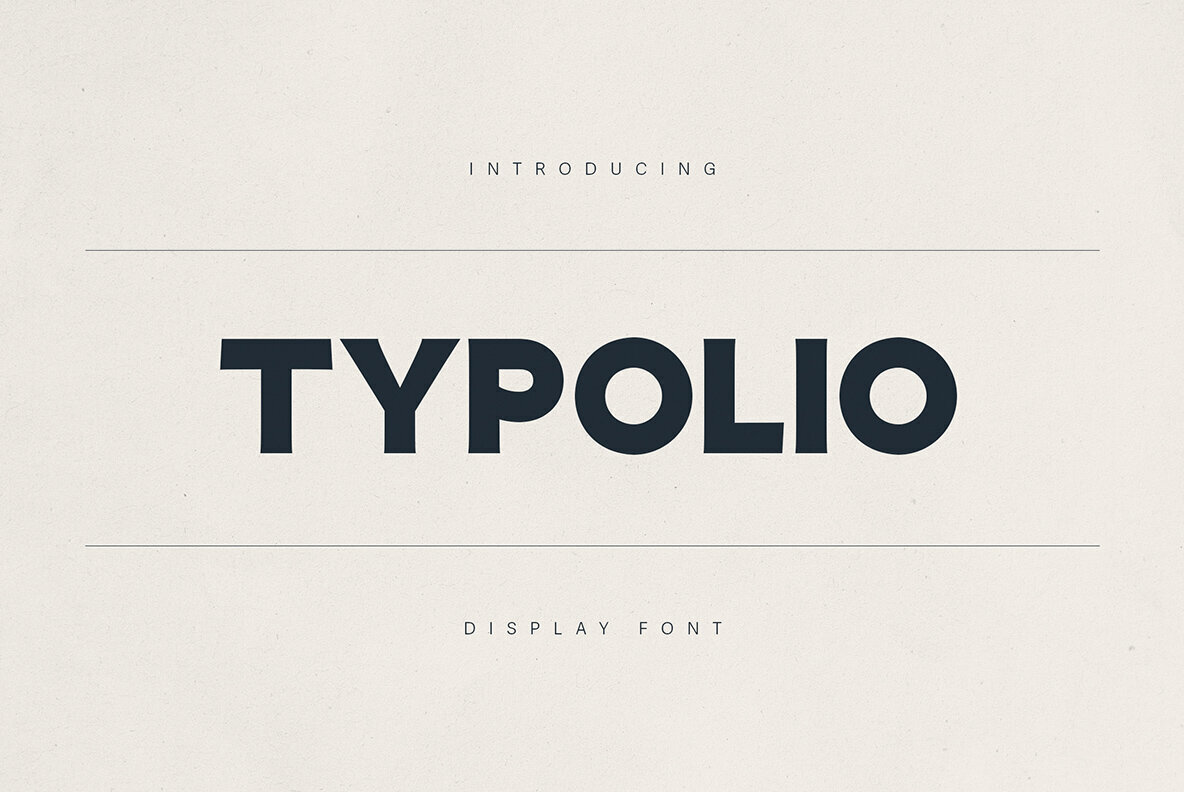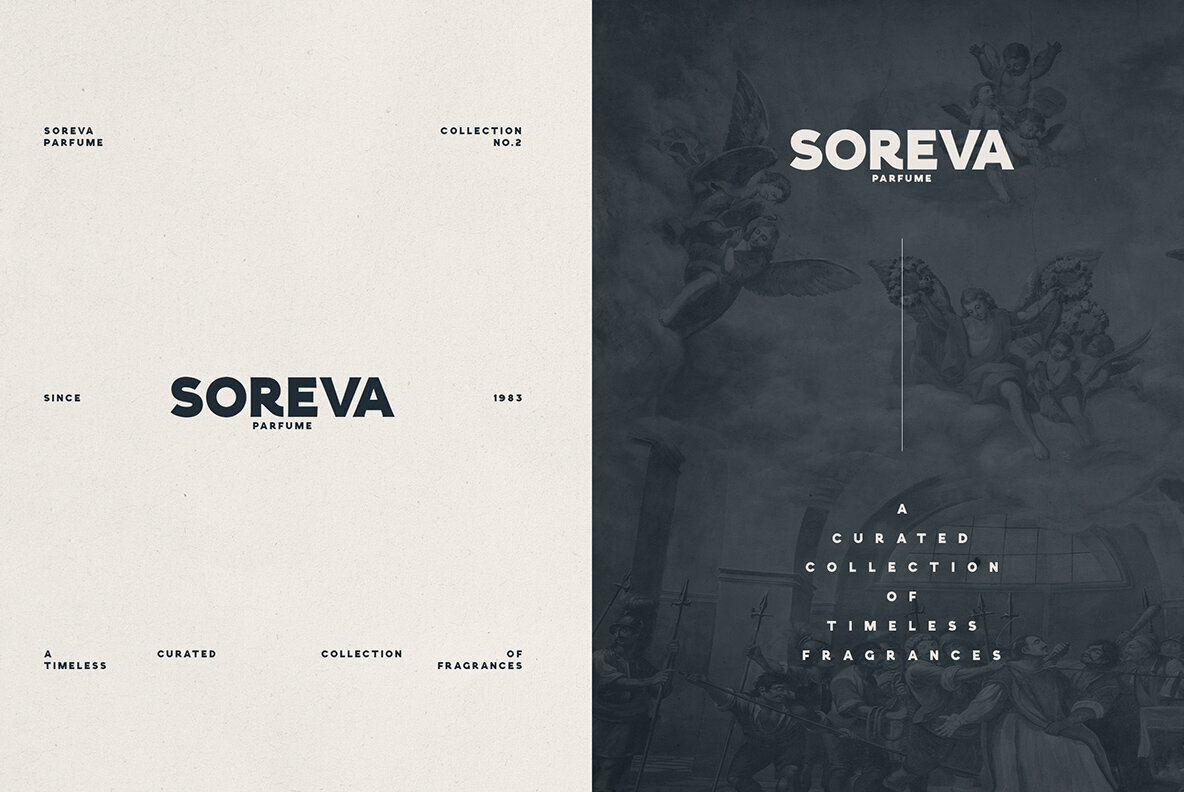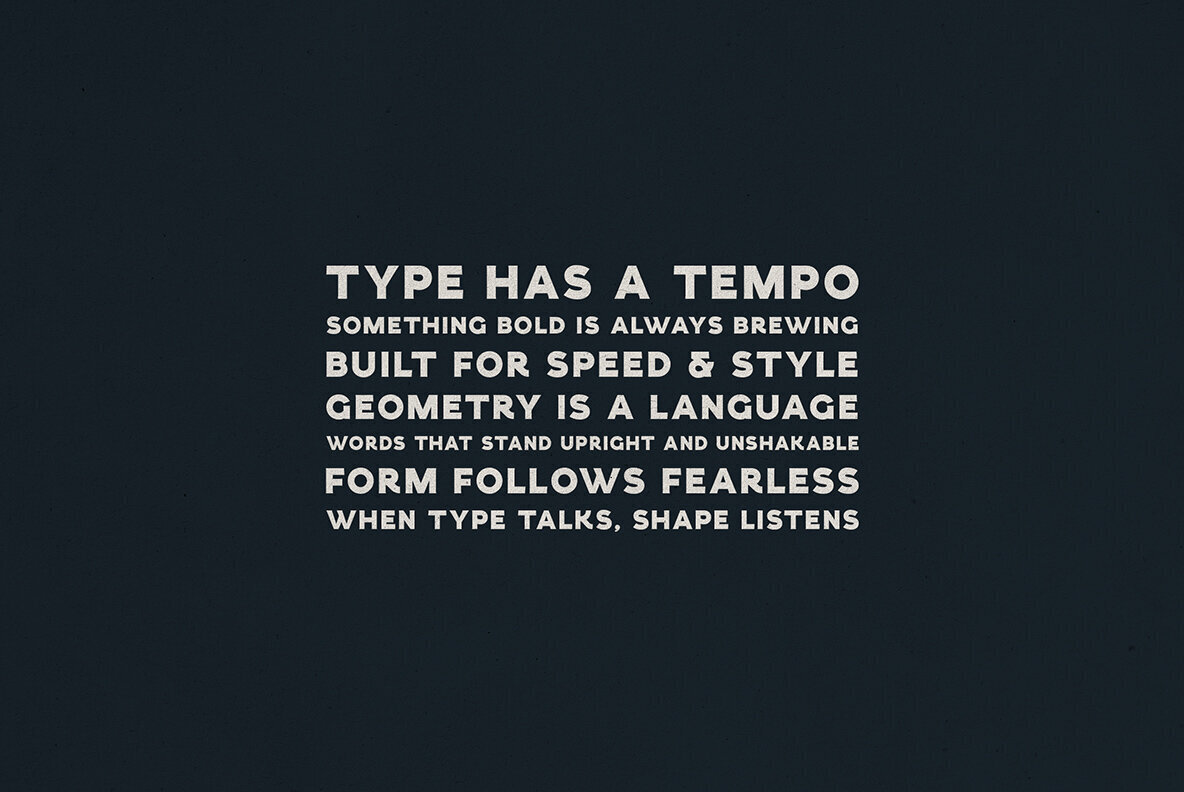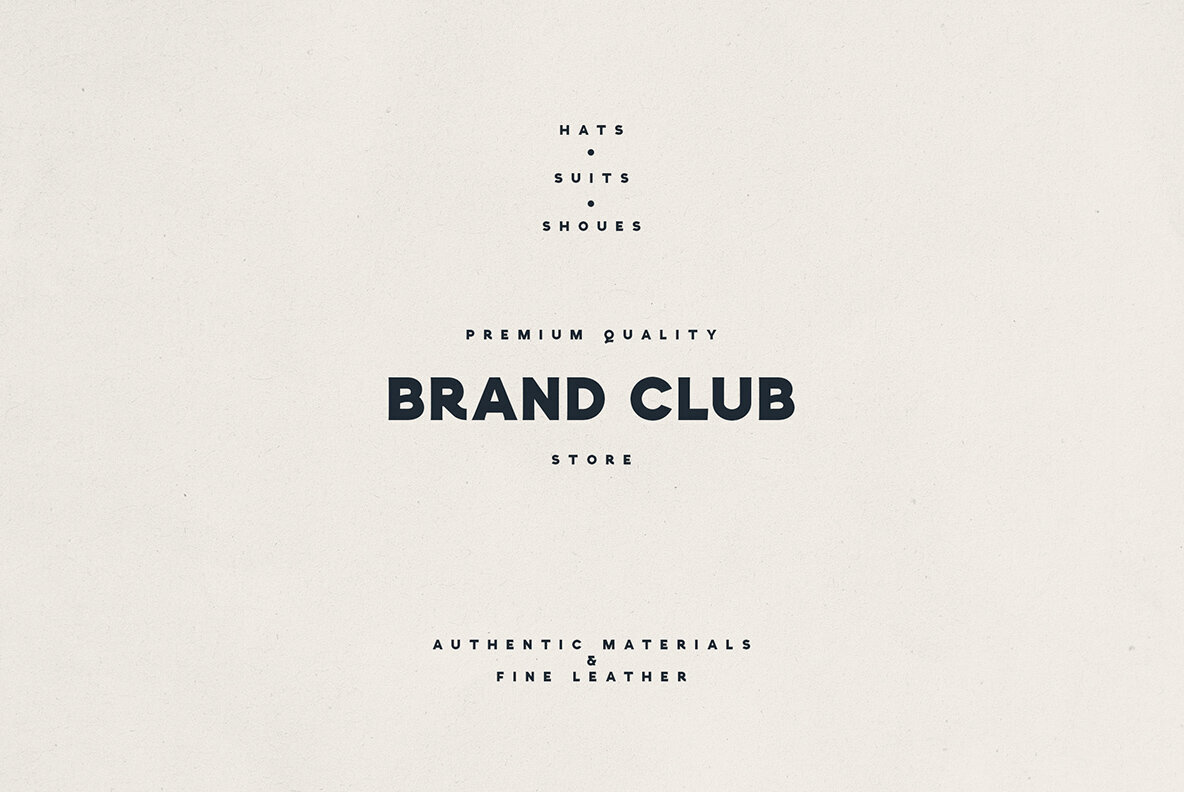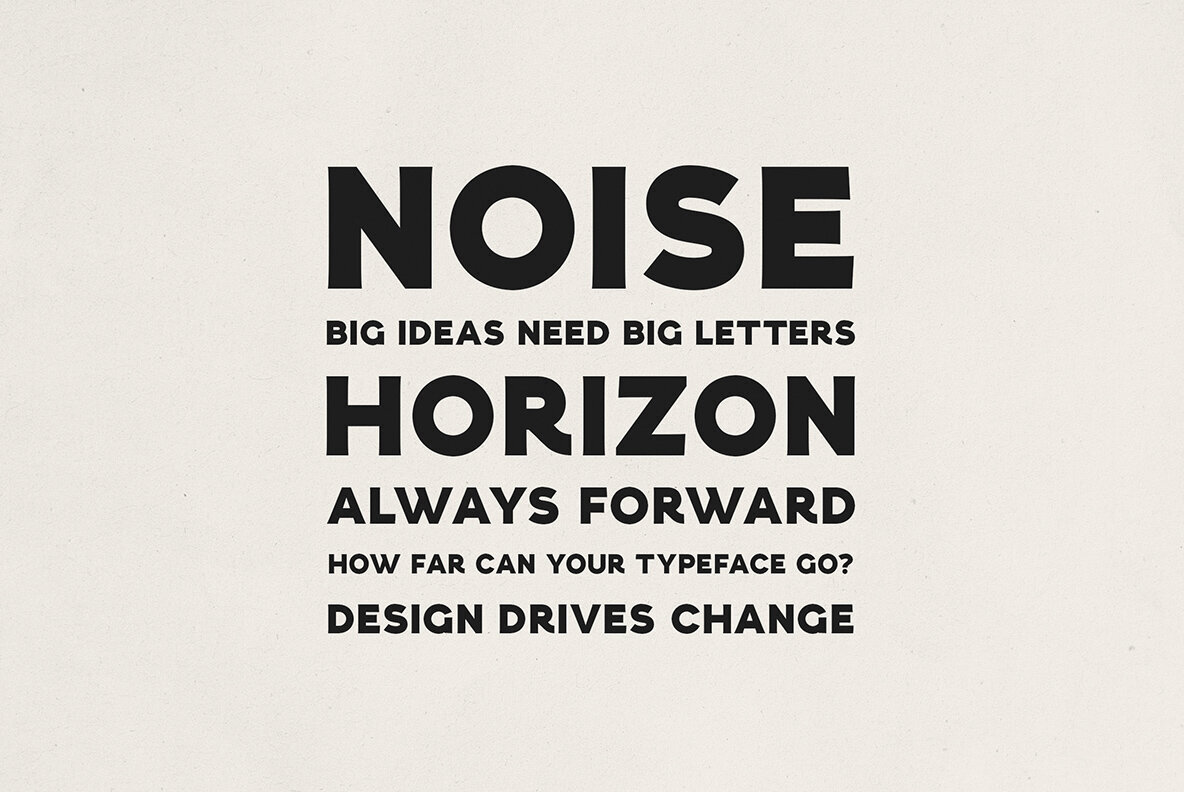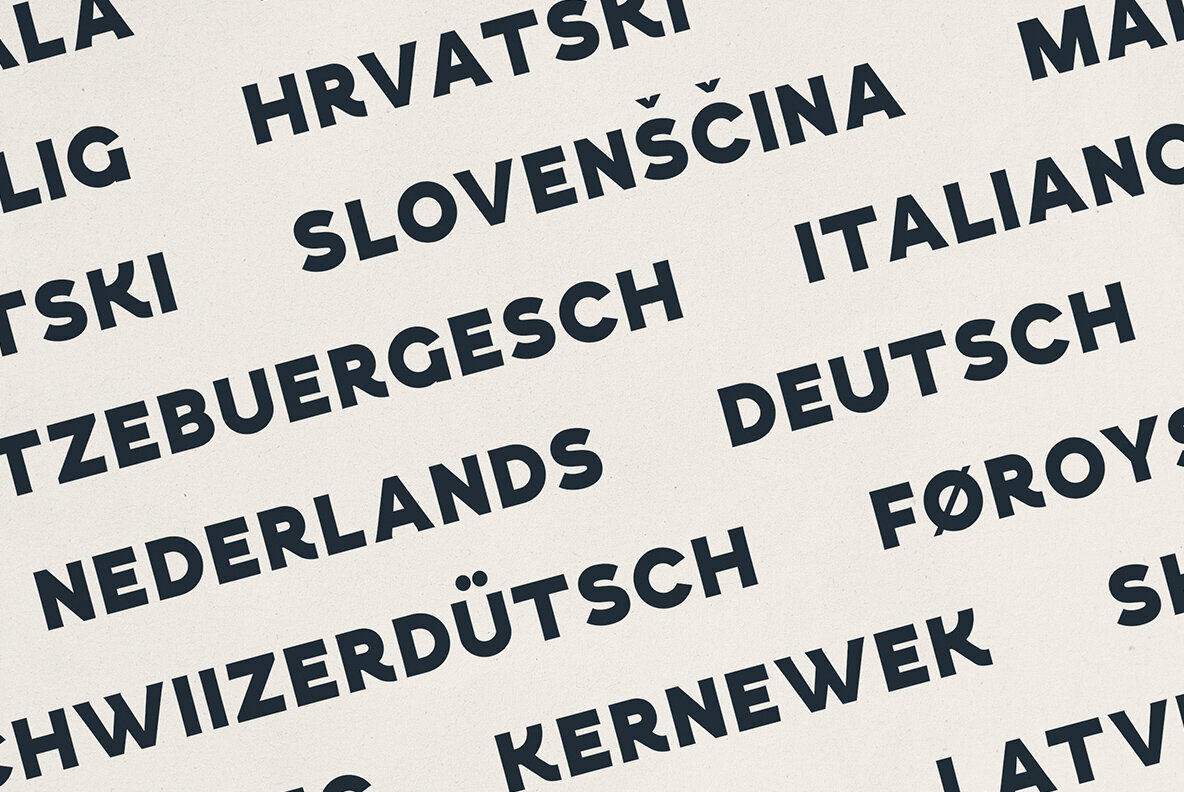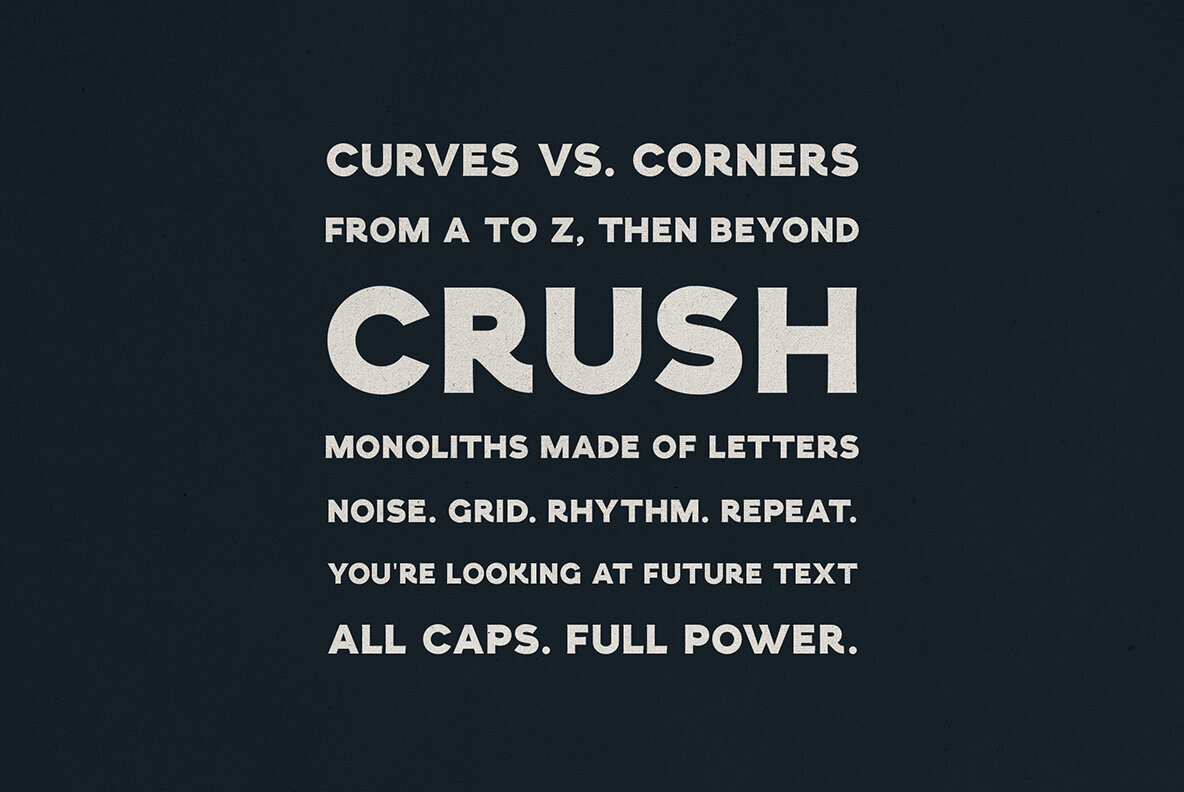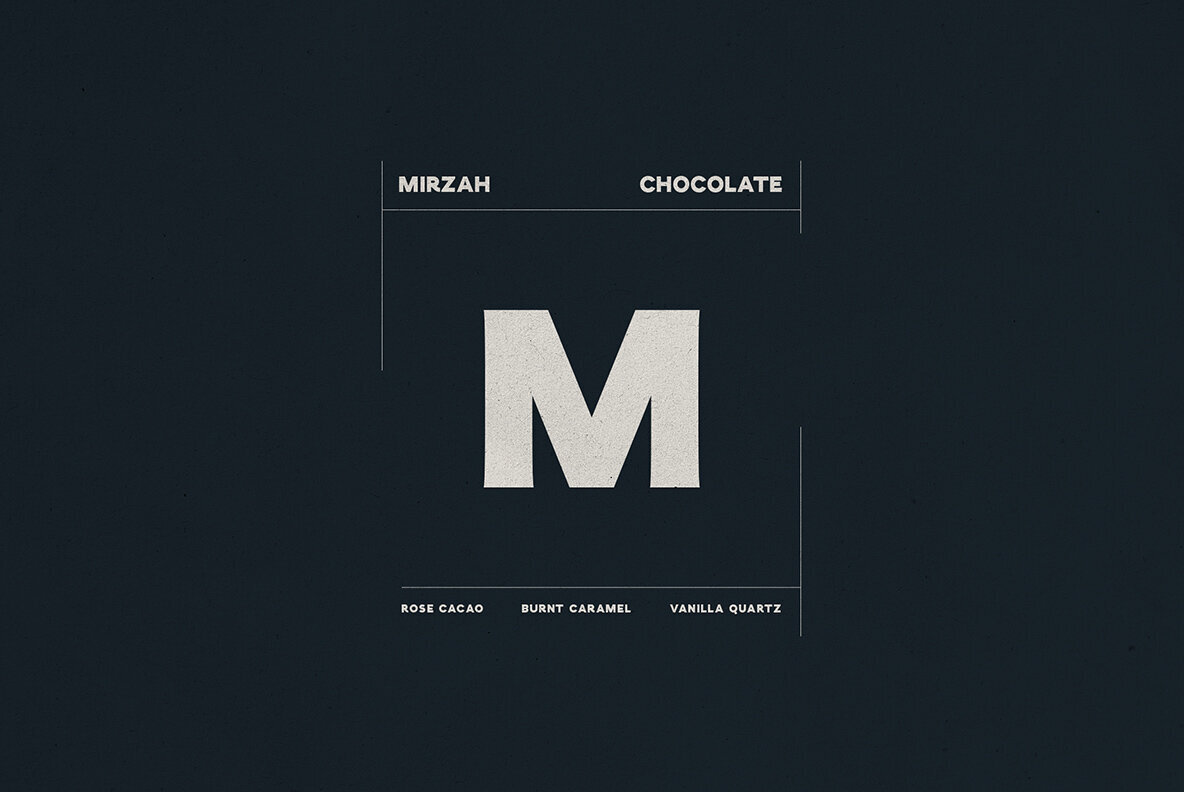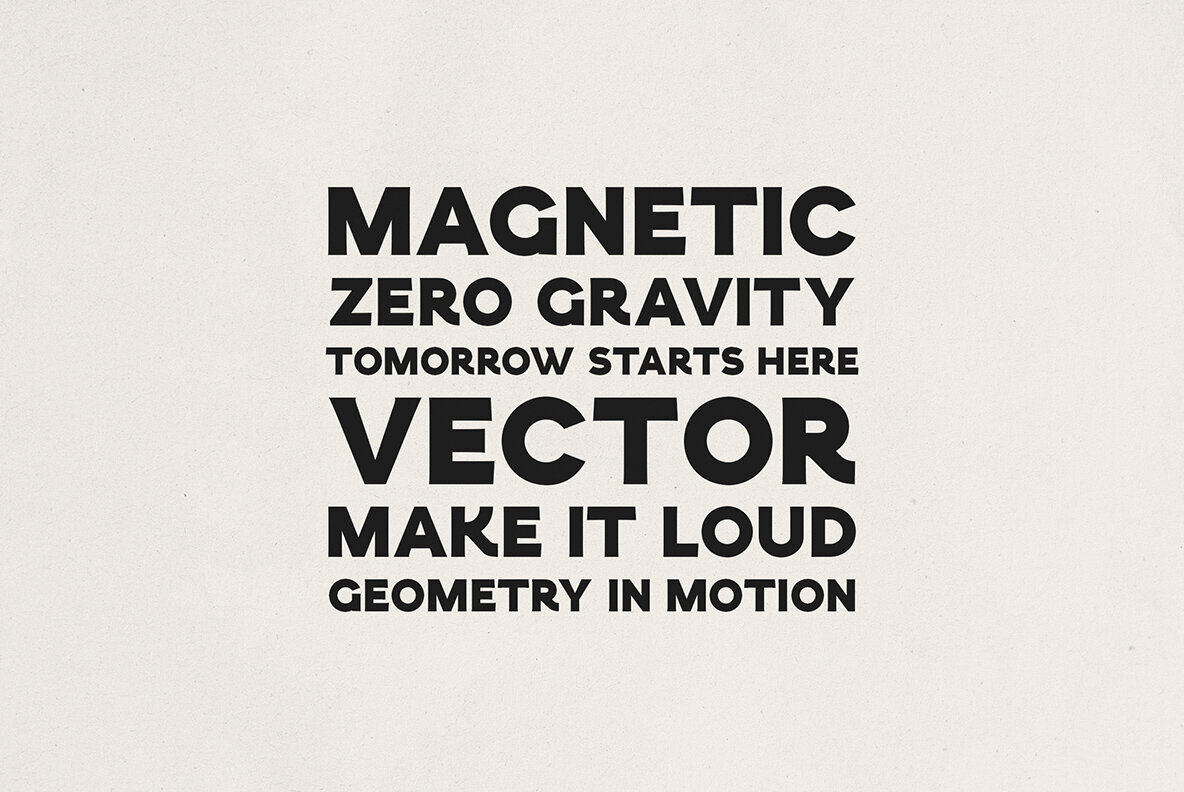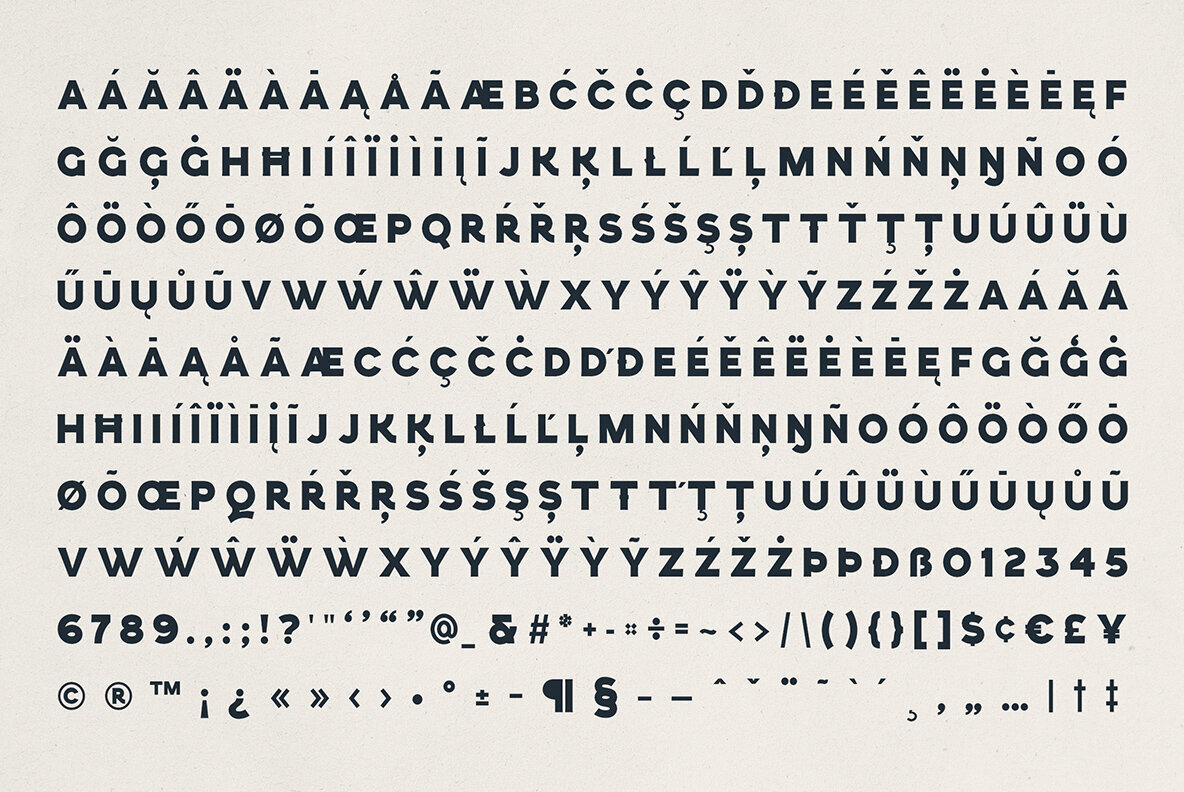
Typolio Font
Typolio Regular
Typolio serves as a distinctive font designed for modern brand aesthetics, balancing geometric precision with a touch of elegance. Its bold display makes it suitable for an array of applications, from branding to editorial design, enhancing logos and magazine covers alike. Typolio shines in projects needing a modernist flair—think fashion labels, tech startups, or minimalist layouts that benefit from its impactful yet clean lines. This font maintains clarity across platforms, ensuring your design holds its own both digitally and in print applications. Embody clarity and presence in your design with Typolio, where typography becomes an expression of bold elegance.Bold Typography with Typolio Display Font